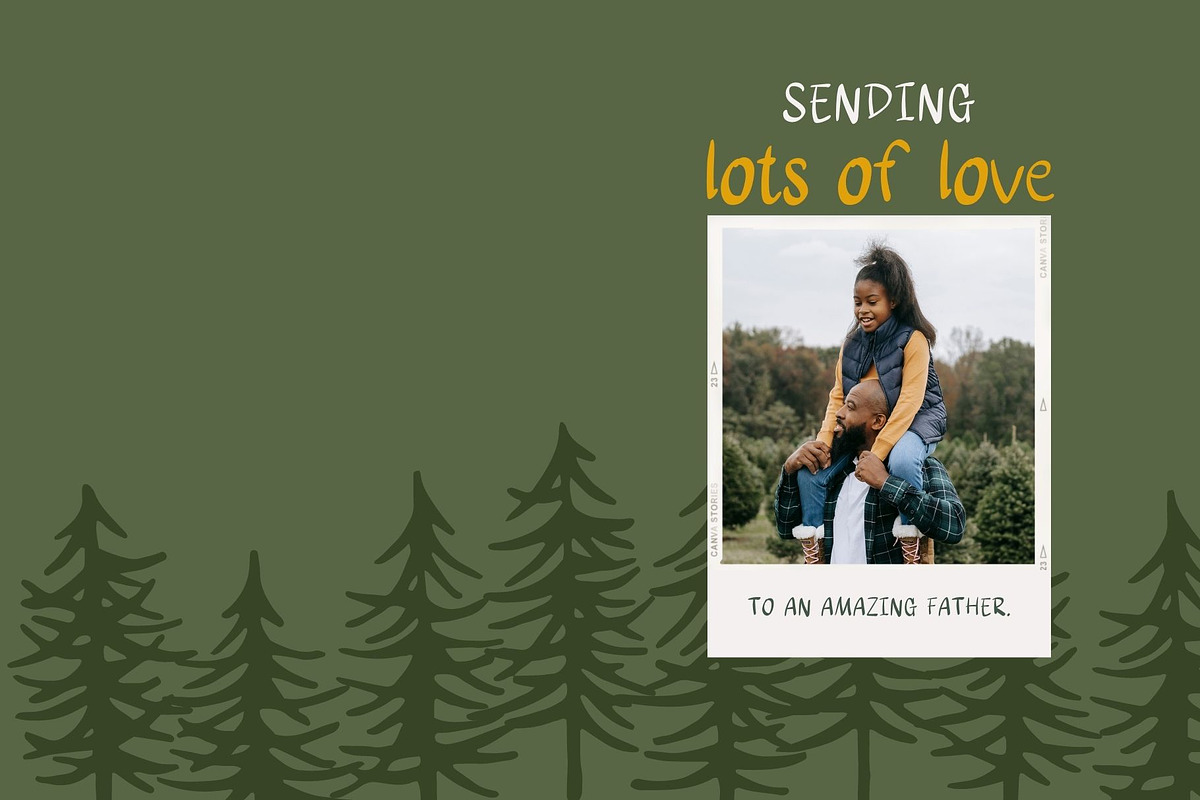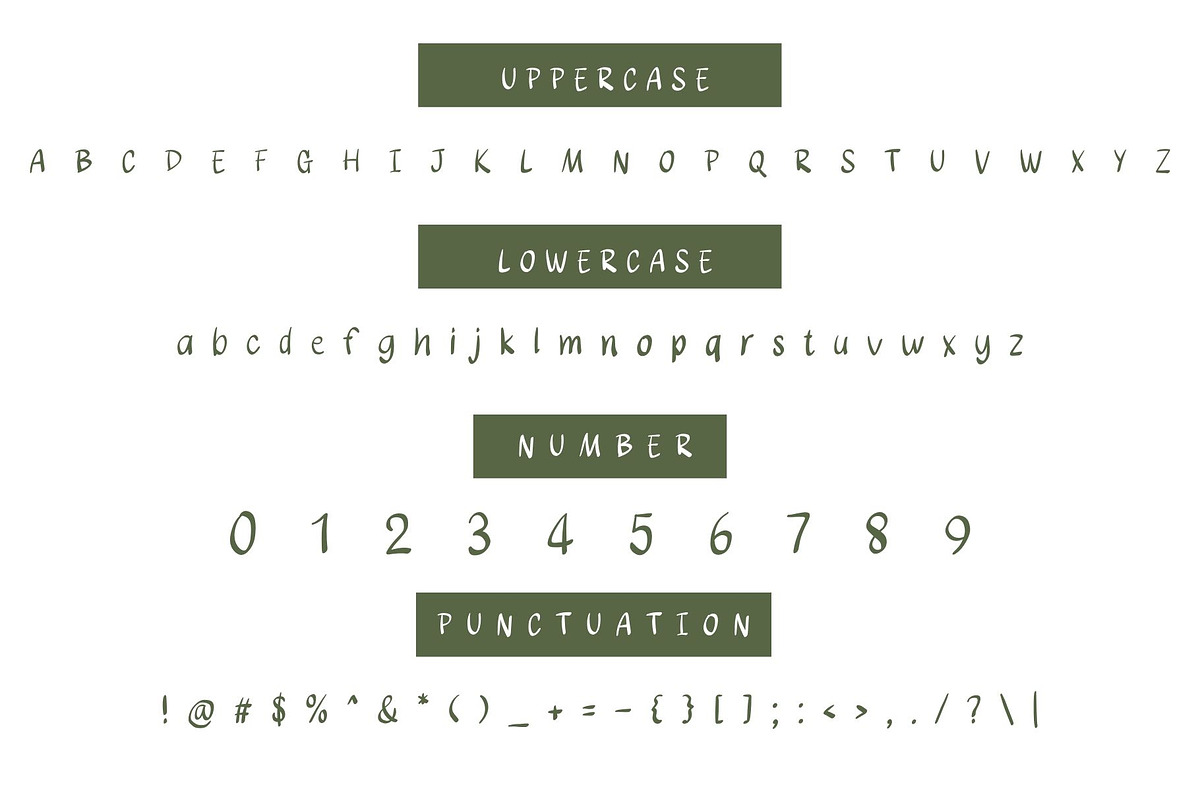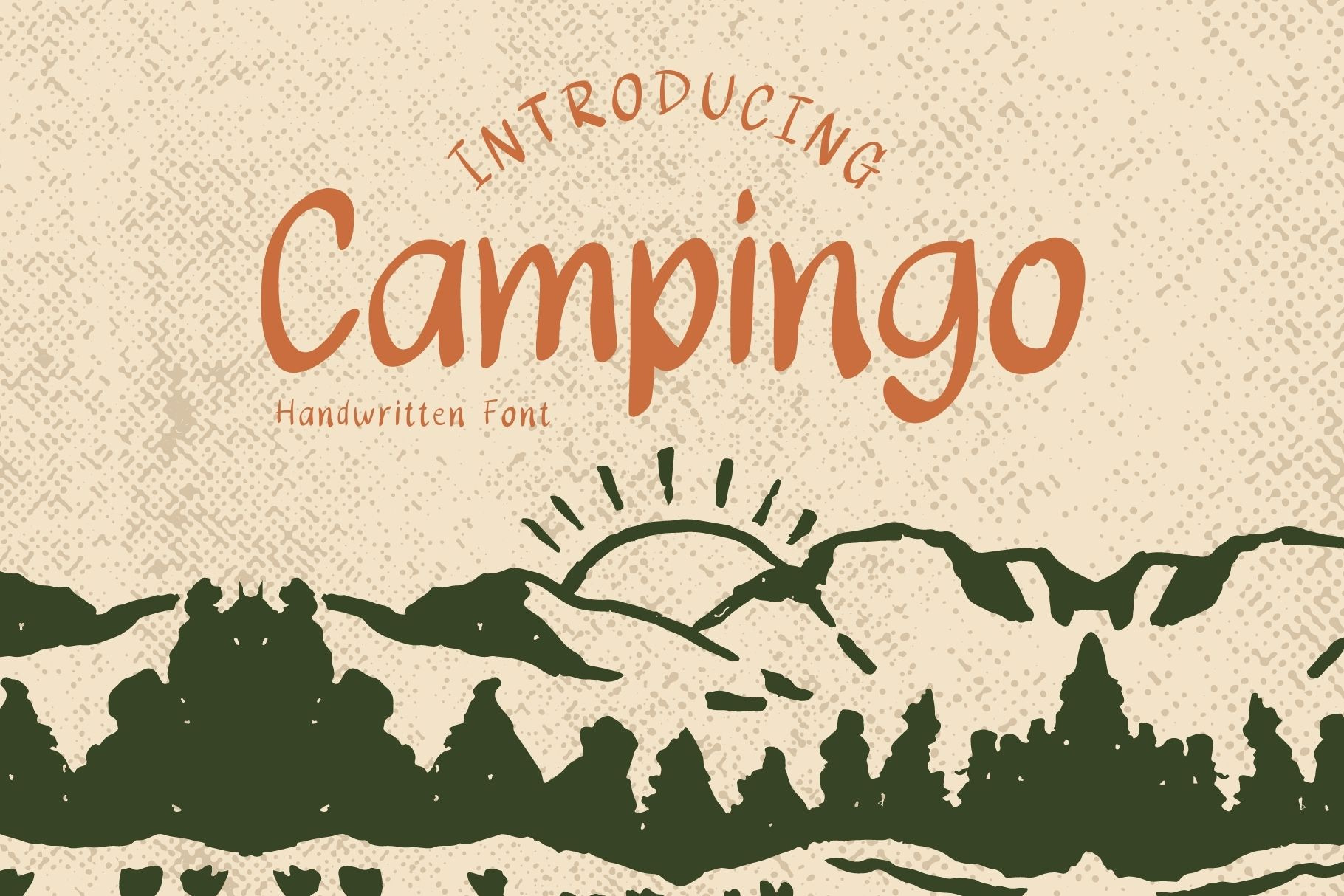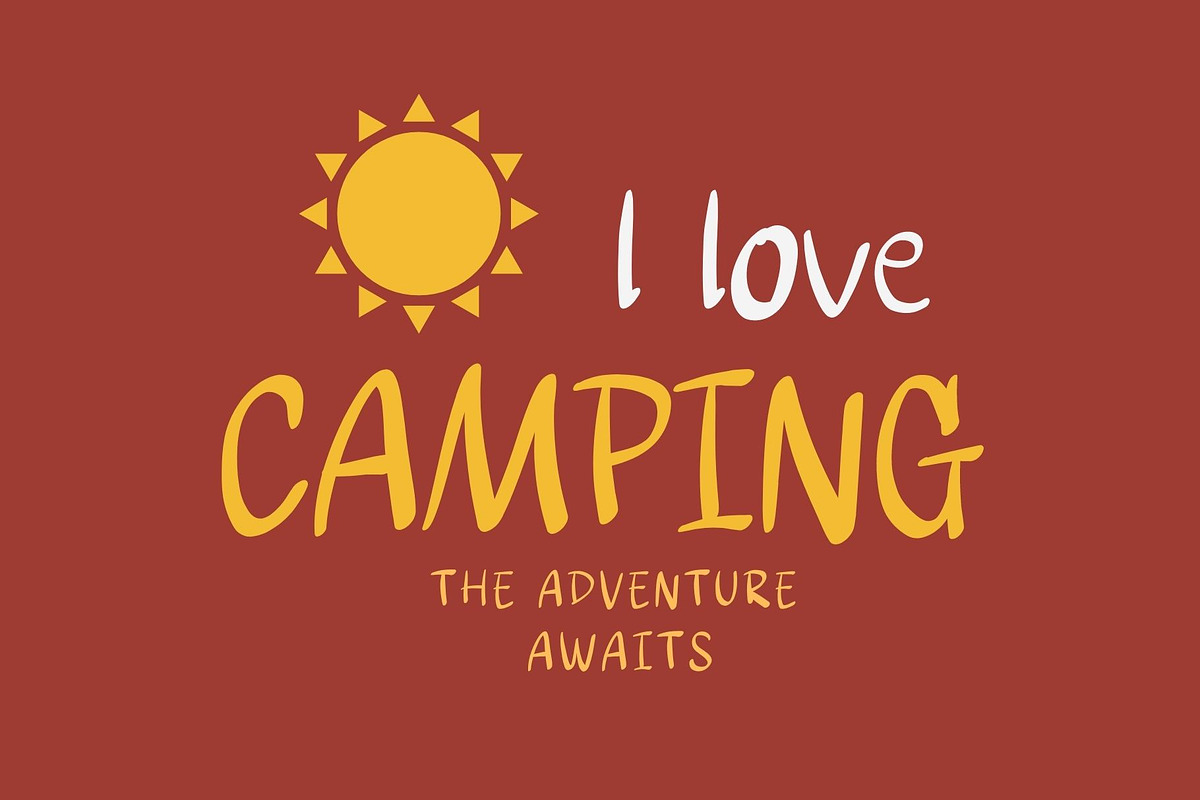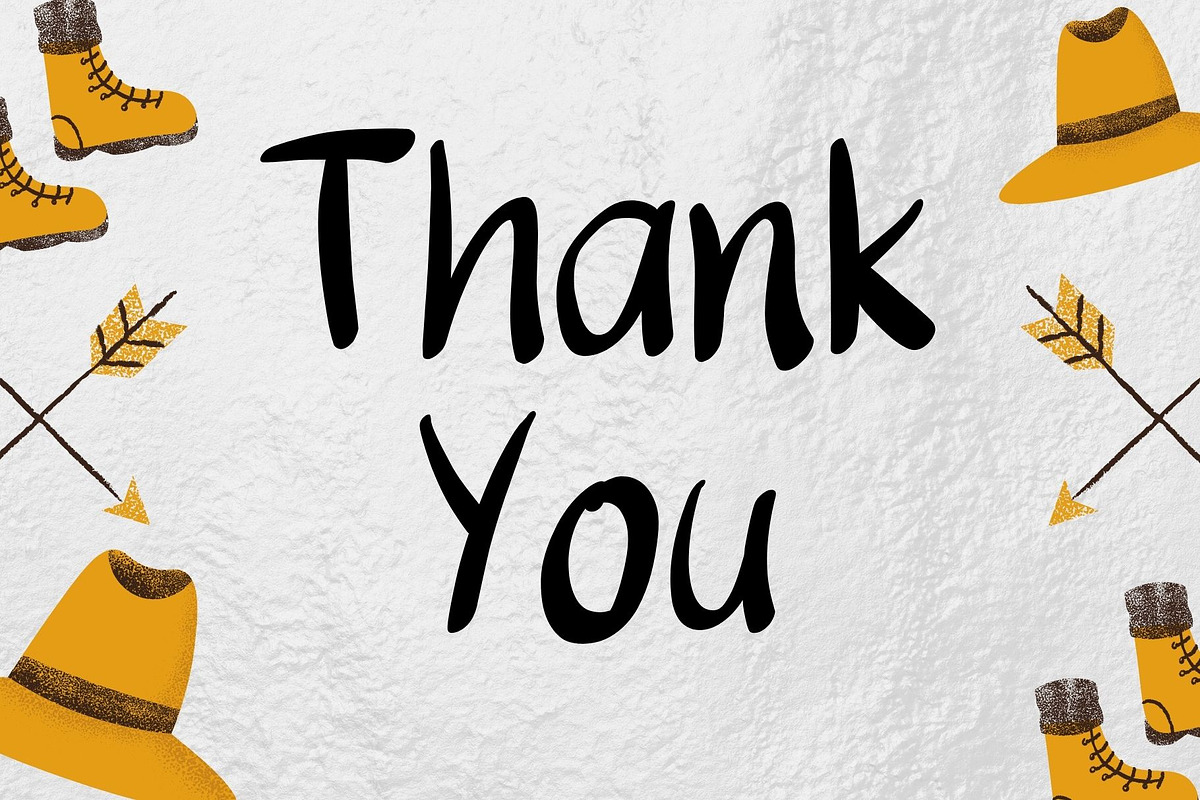
Campingo handwritten font
Campingo is a cute notebook handwritten font. It embodies playfulness and authenticity and is the perfect choice for all your favorite projects such as blog posts, logos, branding, ads, invitations, greeting cards, planners, photo albums, decorations, and much more. Add it to any of your designs, and enjoy the results!